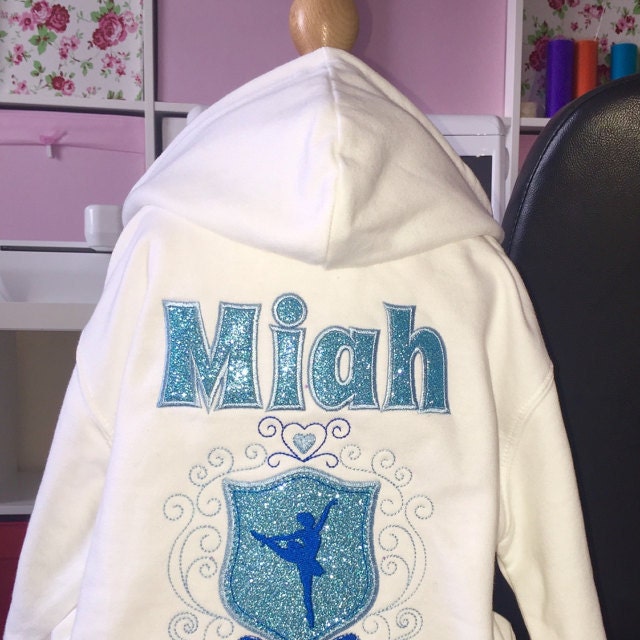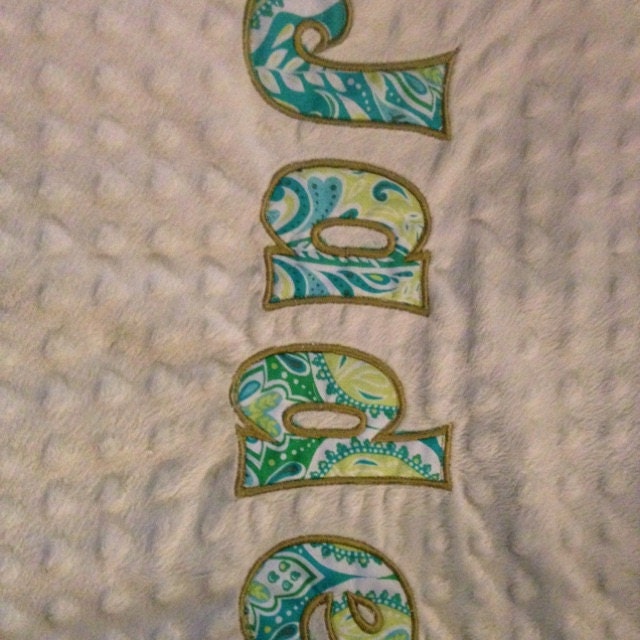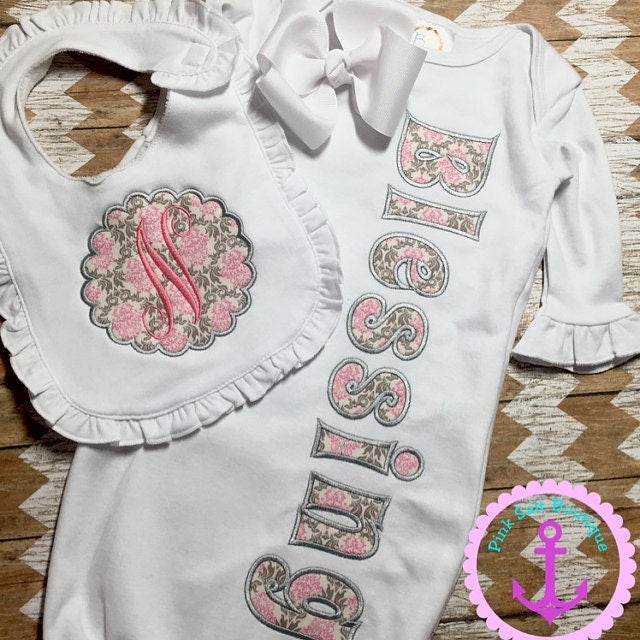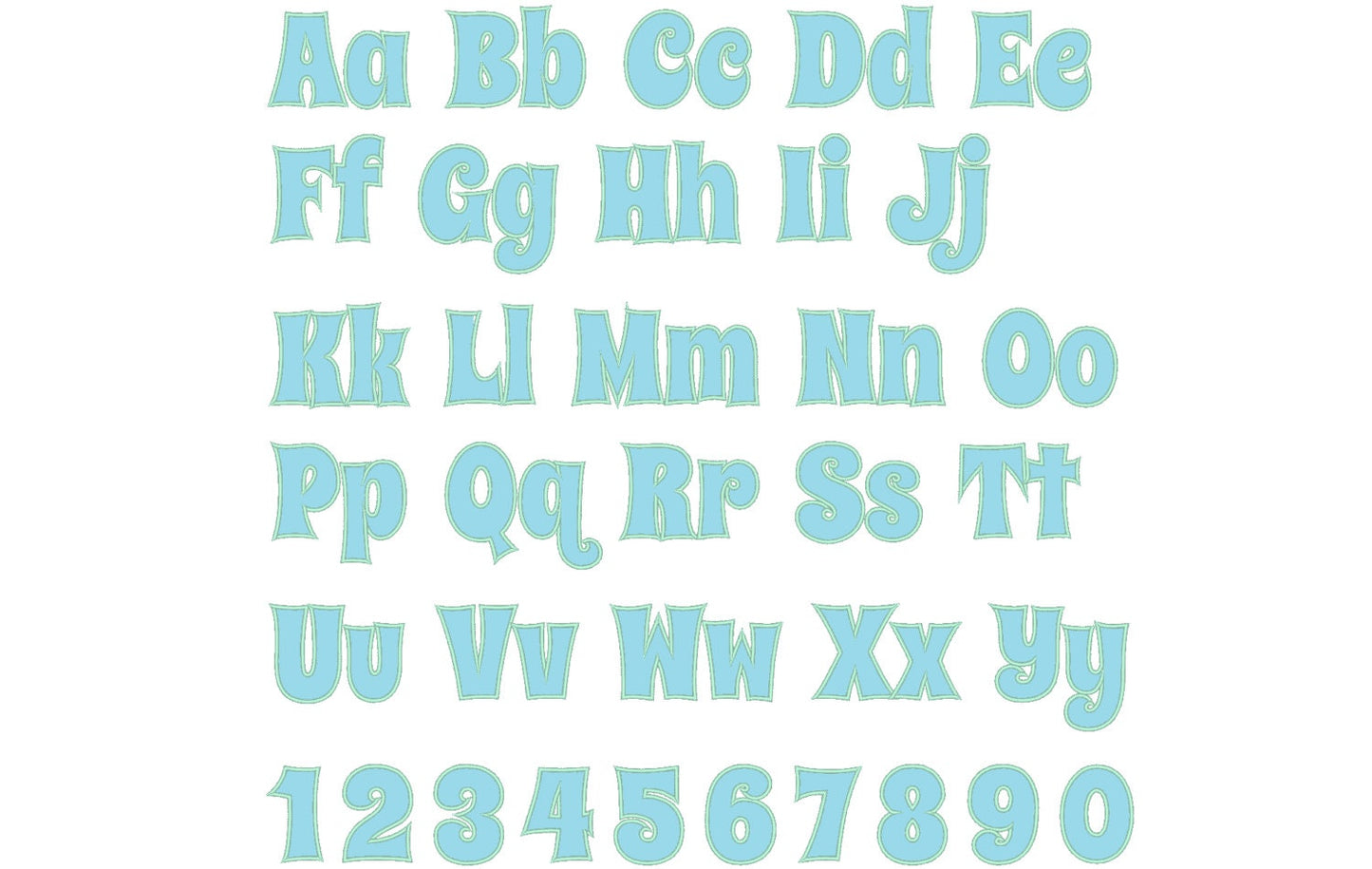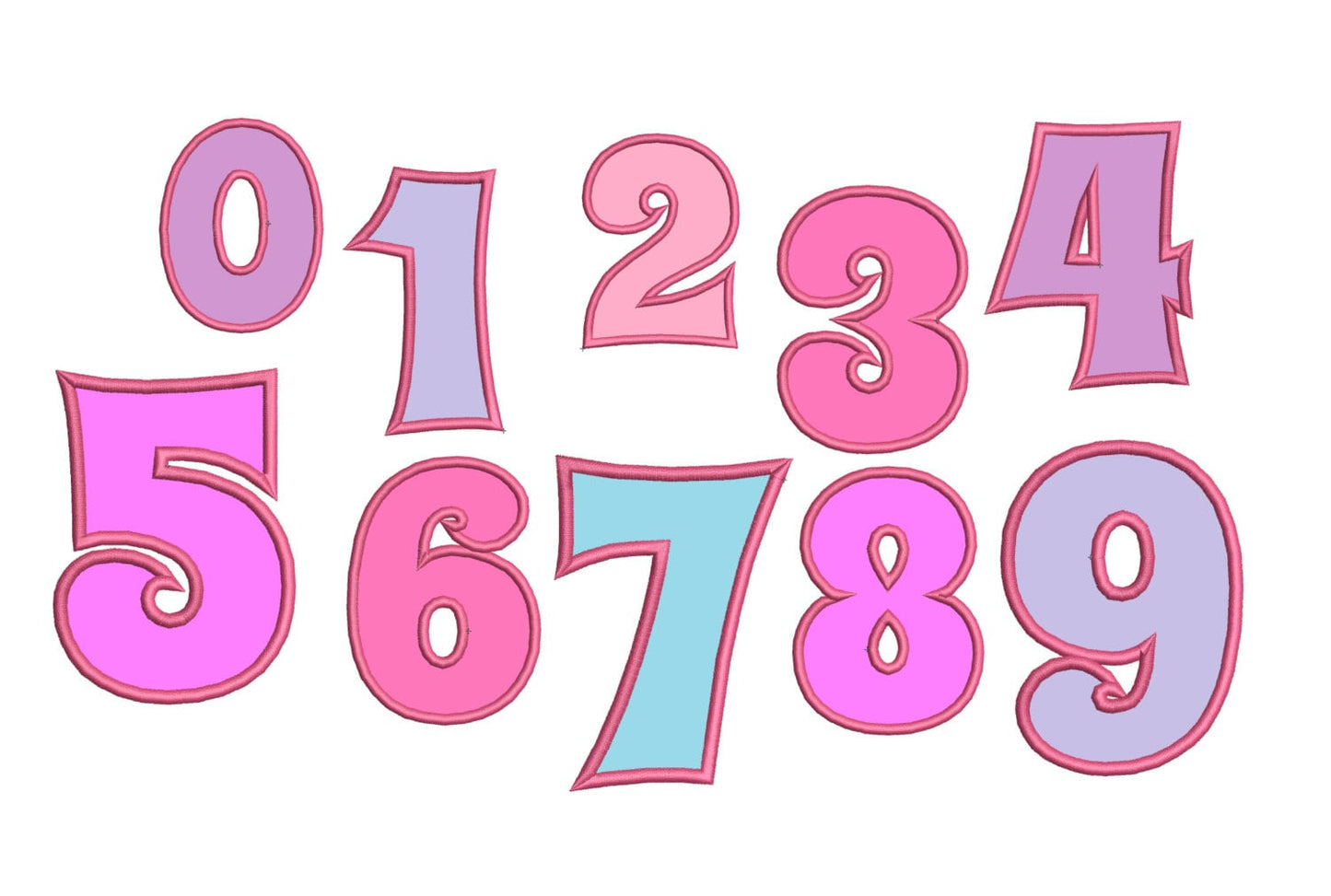
Monogram Font Applique
Uppercase and lowercase letters and numbers 0 to 9, stitched as applique, in four sizes: 2.2, 2.8, 3.9 and 6.3 inches.
- Monogram applique font
- Uppercase and lowercase letters, numbers 0-9
- 4 sizes, 2.2 to 6.3 in